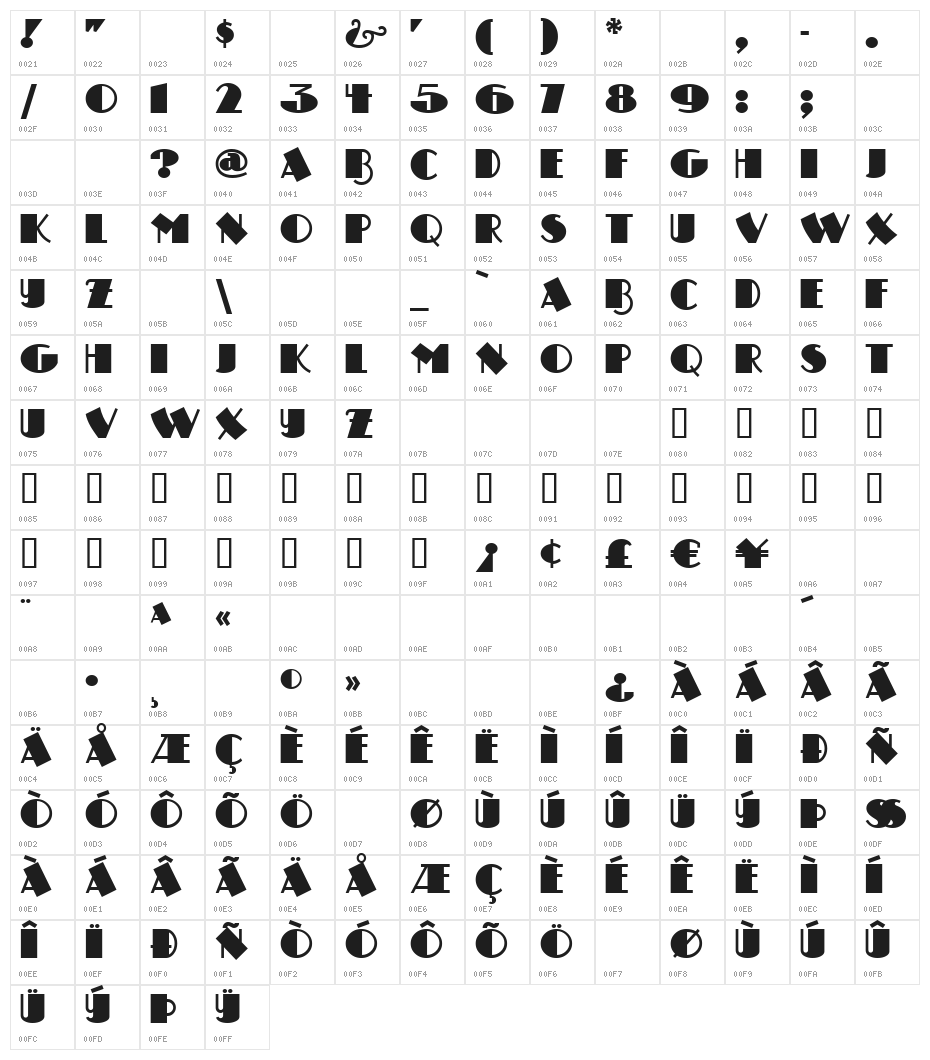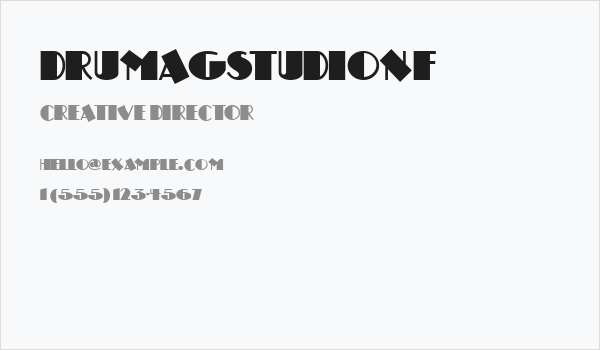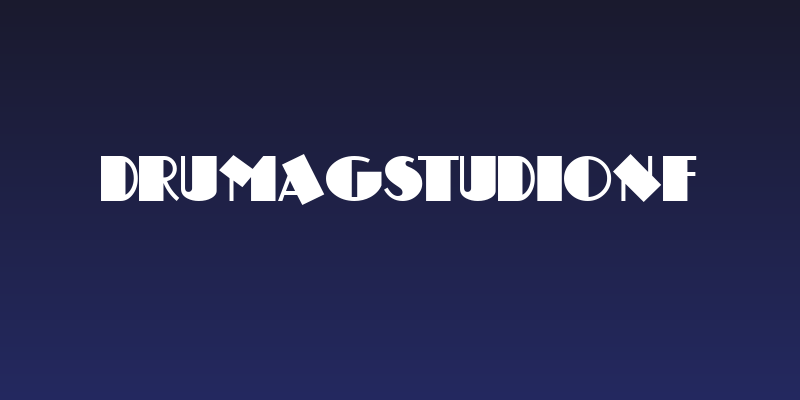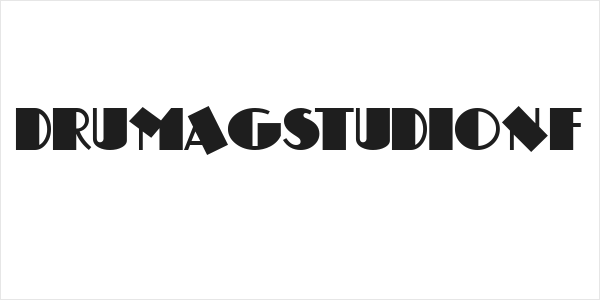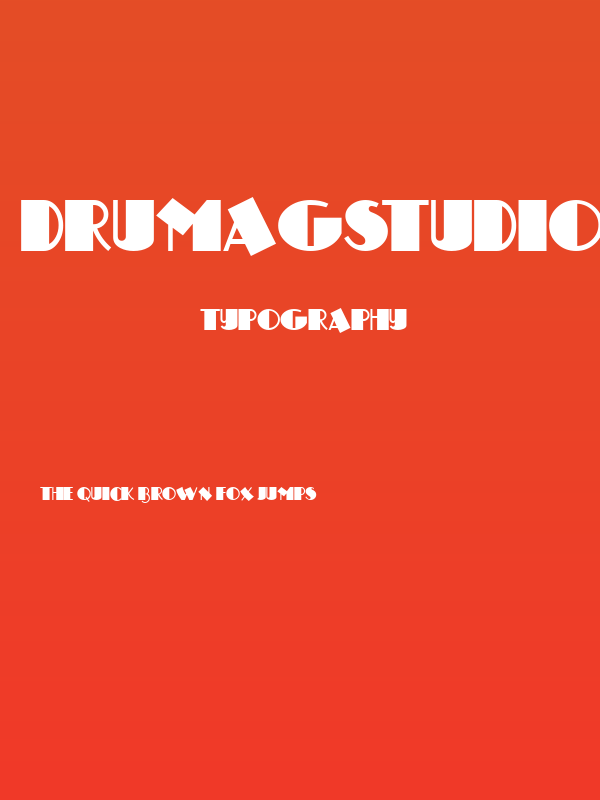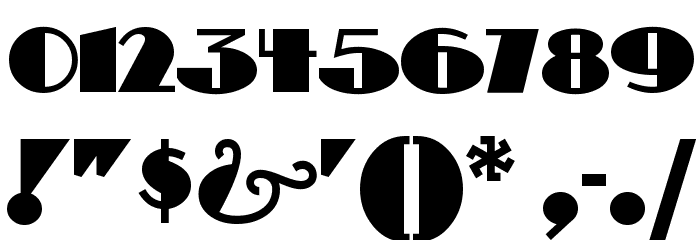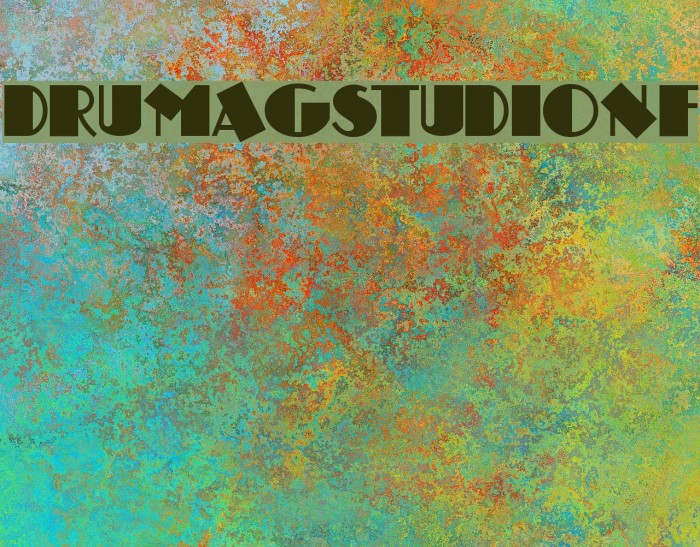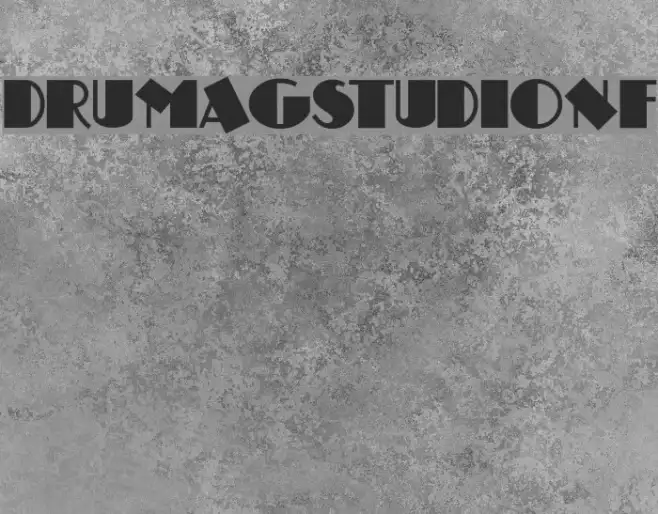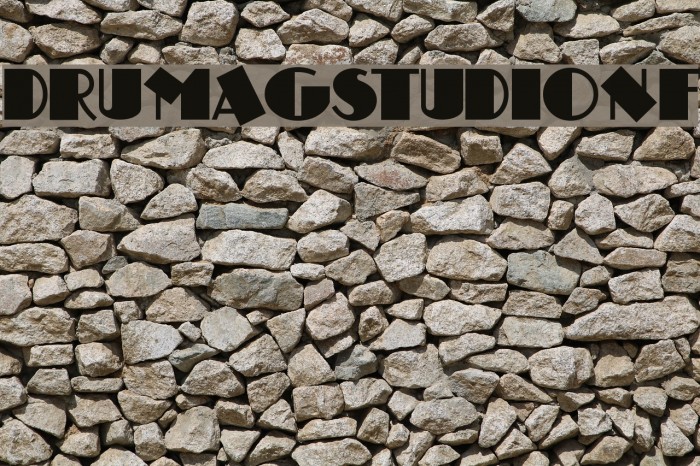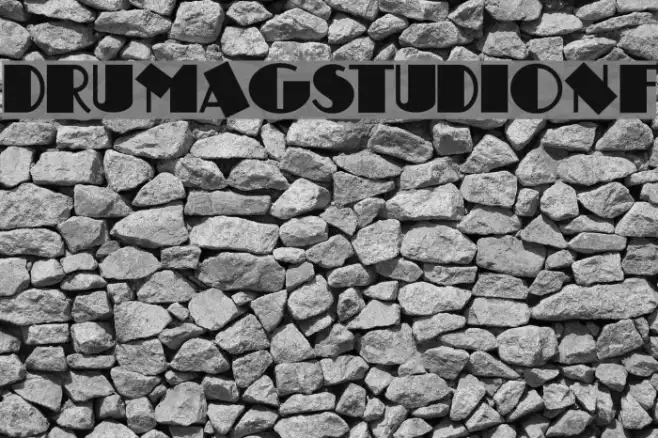
DrumagStudioNF Font
DrumagStudioNF Description
This font features a bold, geometric design with strong, angular lines and a distinct Art Deco influence. The characters are constructed with a combination of sharp edges and smooth curves, creating a dynamic and eye-catching appearance. The uppercase letters are particularly striking, with unique elements such as the diagonal cut in the 'A' and the circular form of the 'O'. The lowercase letters maintain the same boldness, ensuring consistency across the typeface. Numbers and special characters follow the same stylistic approach, making them stand out with their bold and decorative forms. This font is ideal for projects that require a strong visual impact and a touch of vintage elegance.
| Overall Style | Vintage |
| Use Case | Logos, Headlines, Posters |
| Proposed Projects | Ideal for branding, poster design, packaging, and any project needing a vintage or retro aesthetic. |